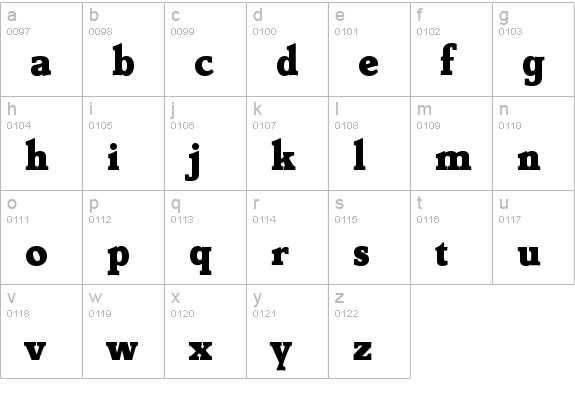
Derringer-Heavy is a heavy, high-impact variant in the Derringer typeface family \xE2\x80\x94 well suited to high-impact headlines, posters, and display advertising.